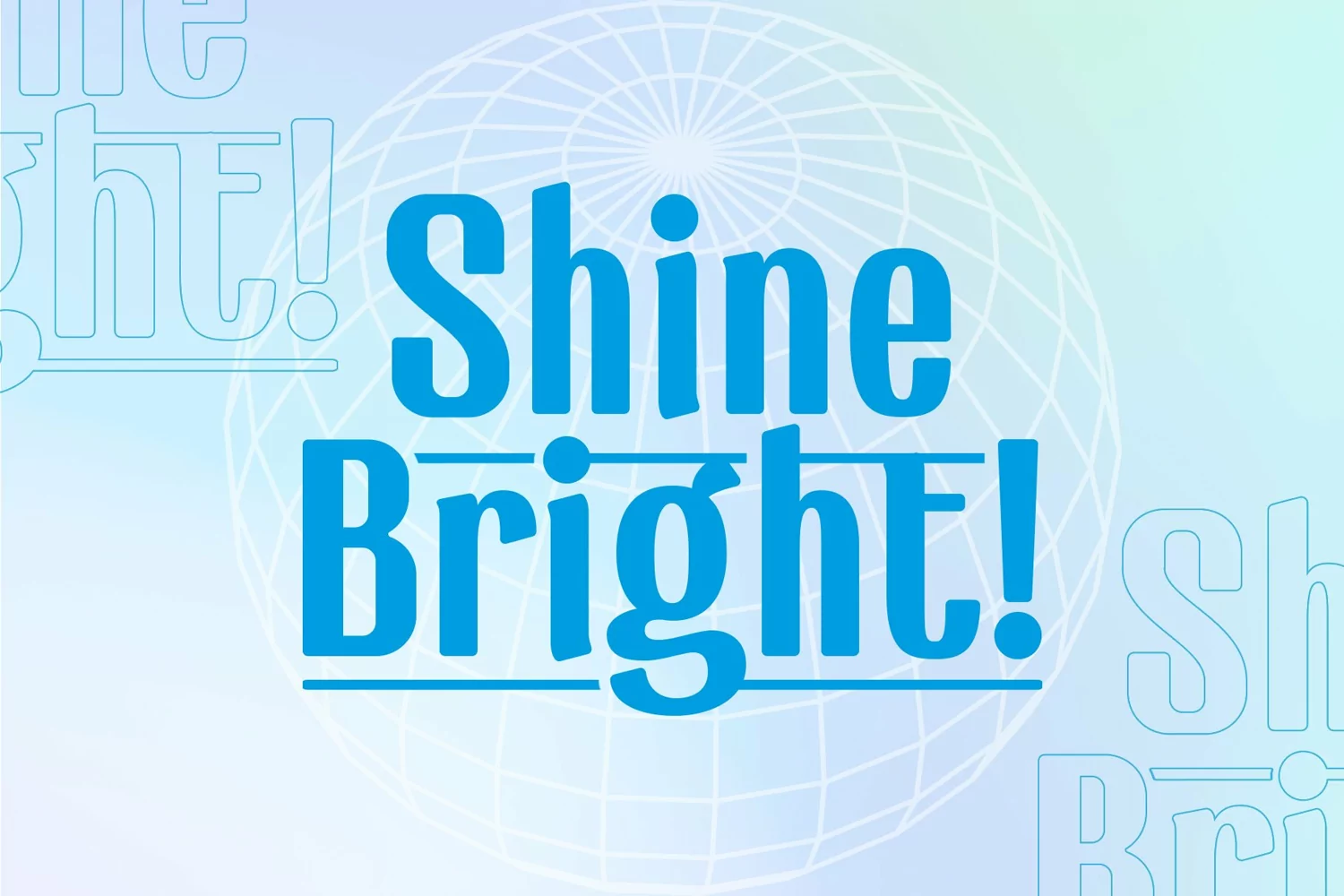
Genio is a powerful display typeface. Perfect for display, poster, quotes, film, craft needs, book cover, business card, packaging, merchandise, branding, logo, logotype, header, title, and many more.